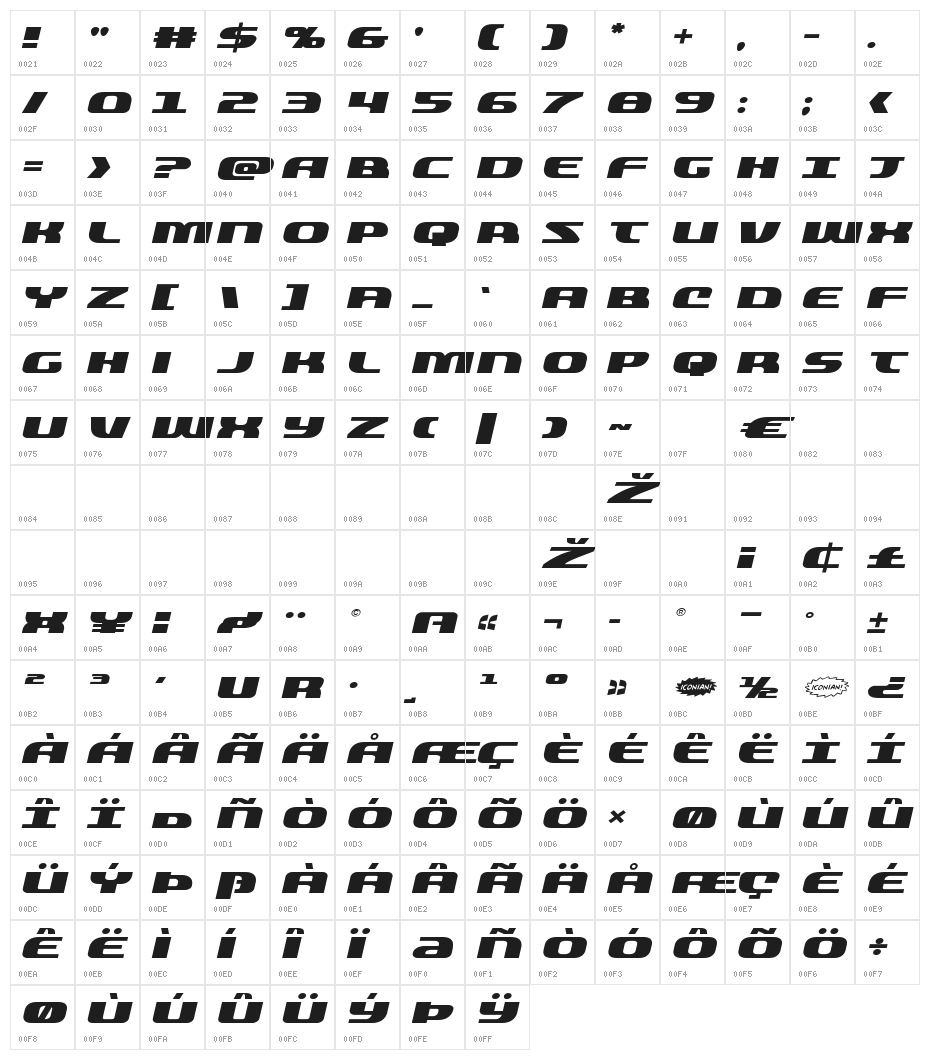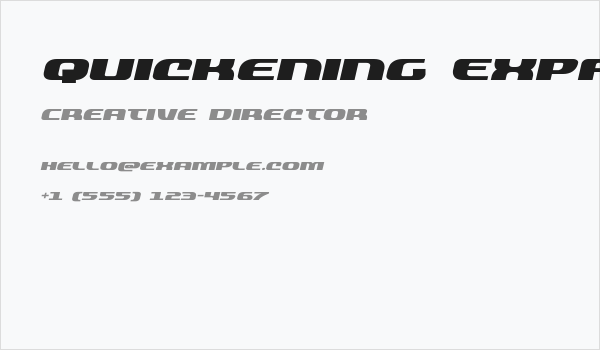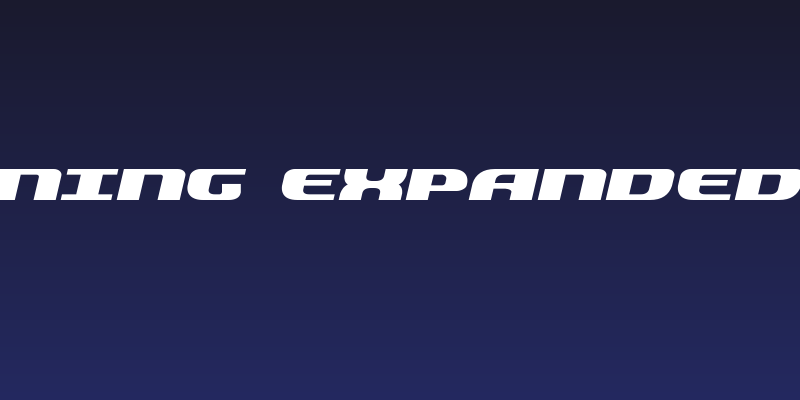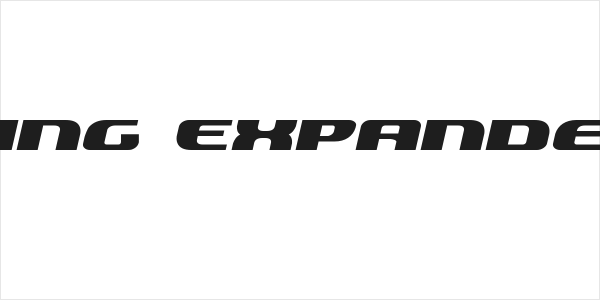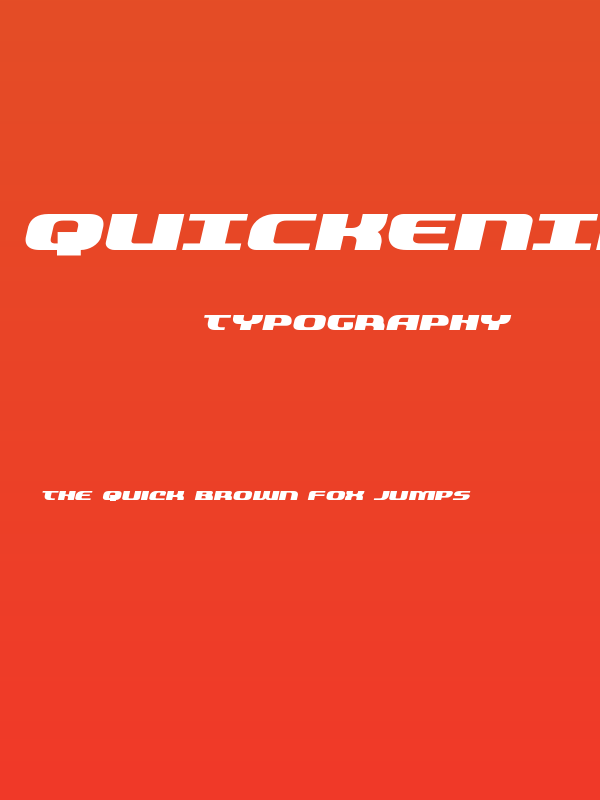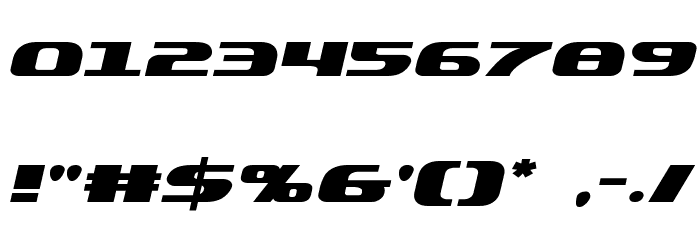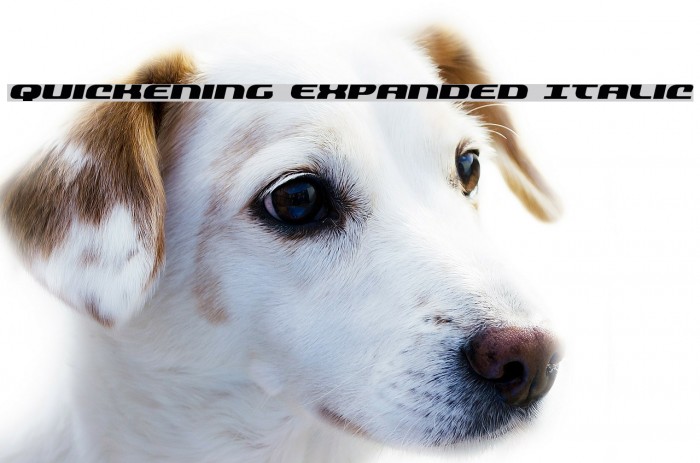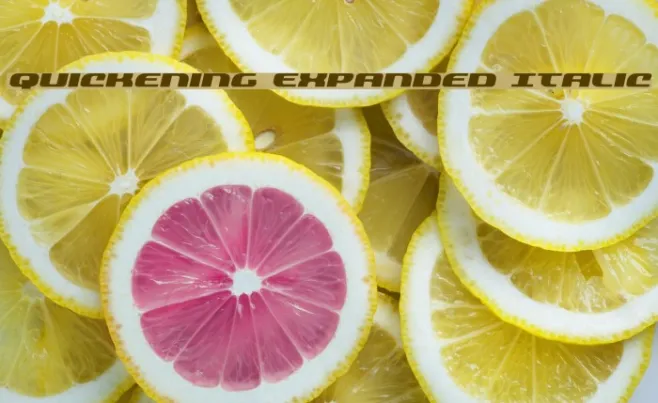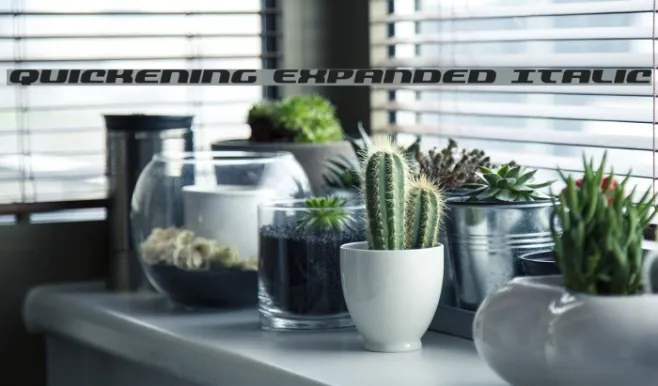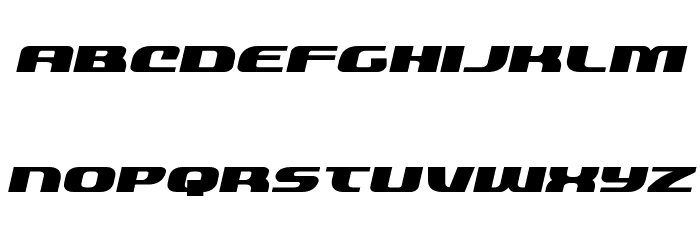
Quickening Expanded Italic Font
Quickening Expanded Italic Description
This font features a bold and dynamic style with an expanded width and italicized slant, giving it a sense of motion and energy. The characters are robust and impactful, making them ideal for attention-grabbing designs. The uppercase and lowercase letters maintain a consistent style, with sharp angles and smooth curves that create a futuristic and modern appearance. The numbers and special characters are equally bold, ensuring uniformity across all text elements. This font's unique design is perfect for projects that require a strong visual presence.
| Proposed Projects | Ideal for sports branding, automotive advertisements, video game titles, and futuristic-themed posters. |